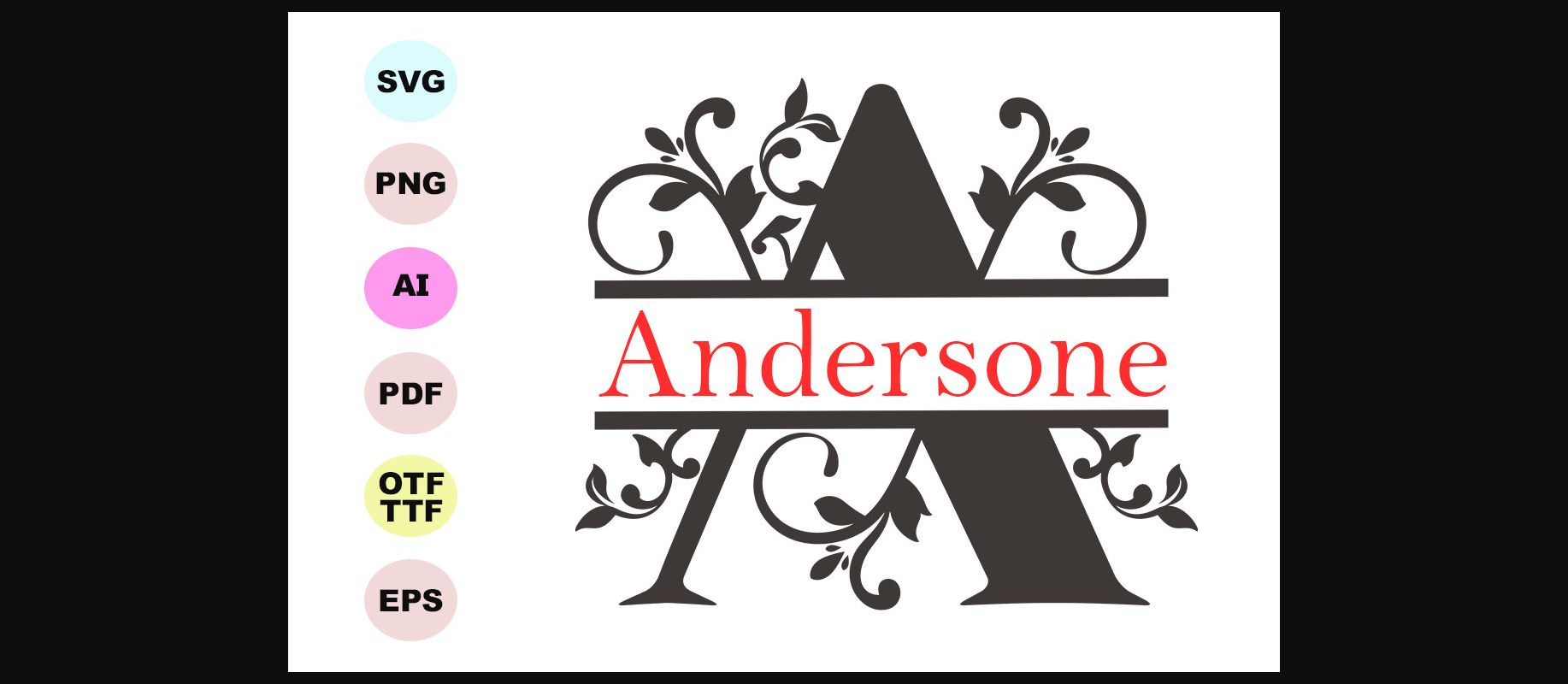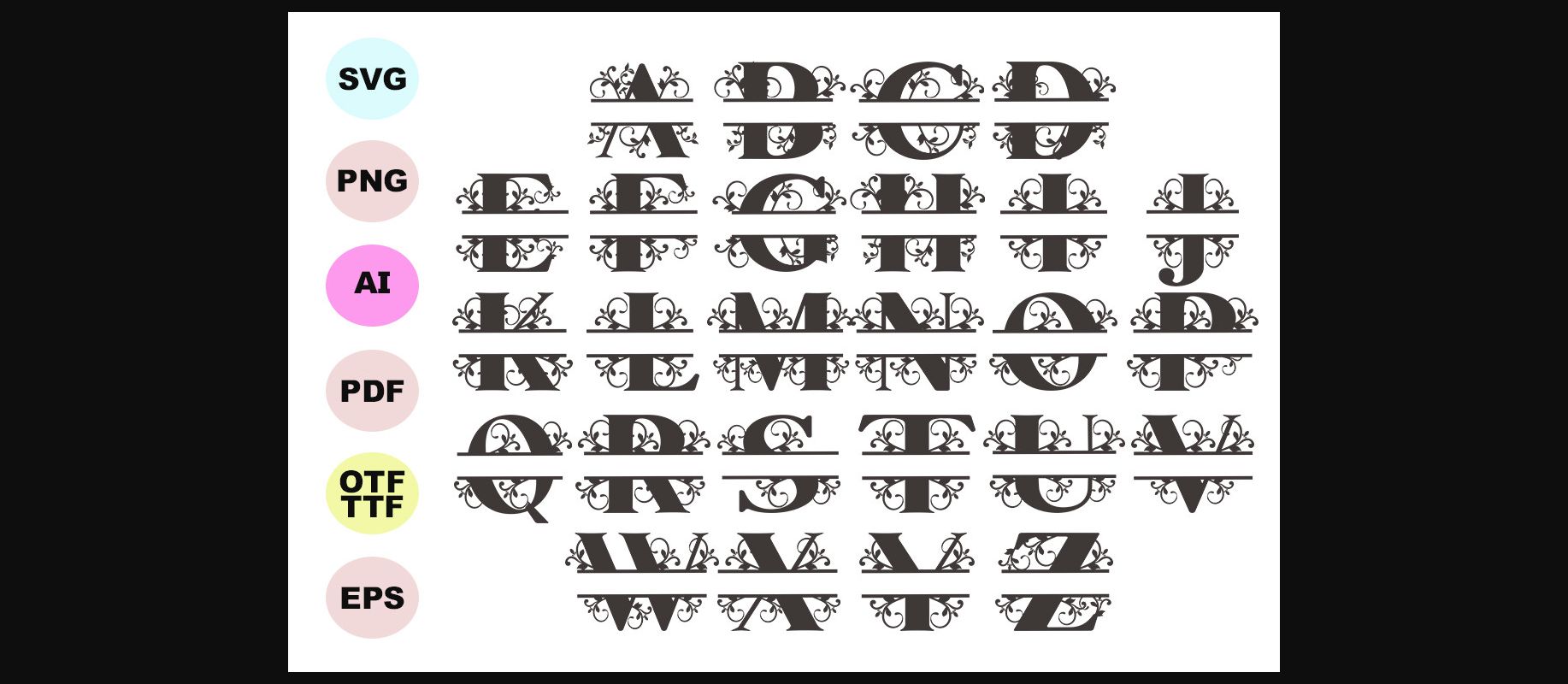
About Andersone Font
Andersone is an elegant decorative font featuring lovely ornaments. Fall in love with its authentic feel and use it to create gorgeous wedding invitations, beautiful stationary art, eye-catching social media posts, and cute greeting cards.